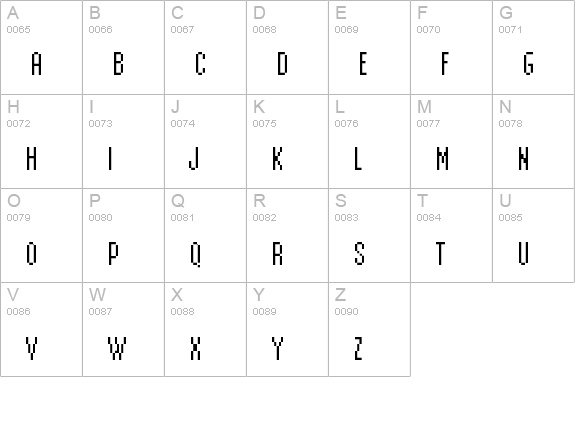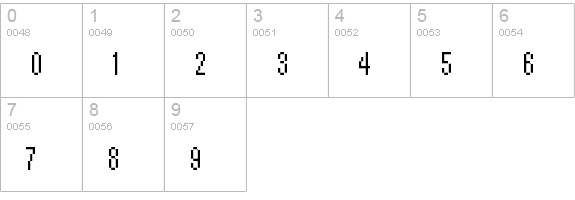
EmperorTen Regular Font Details
EmperorTen Regular is the standard, neutral variant in the EmperorTen typeface family \xE2\x80\x94 well suited to general body text, paragraphs, and standard typographic work.
EmperorTen Regular font is a timeless and versatile typeface that exudes elegance and sophistication. With its clean lines and classic design, this font is perfect for a wide range of design projects, from branding to editorial work. The EmperorTen Regular font is offered for free and is available to download at FontsMarket.com, making it easily accessible for designers and creatives looking to add a touch of refinement to their work. Elevate your designs with the exquisite EmperorTen Regular font and make a lasting impression on your audience.